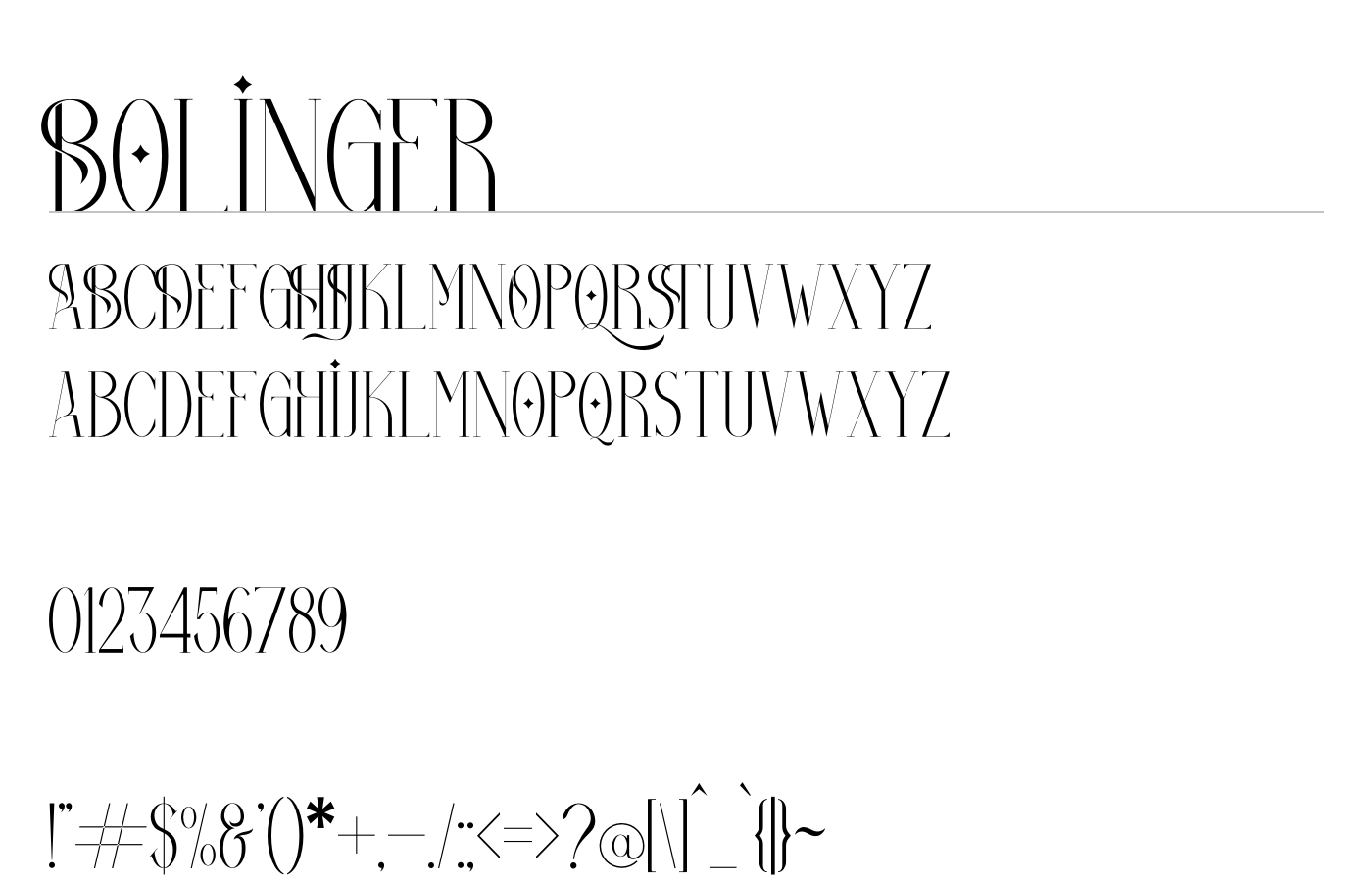
Bolinger is a highly stylized serif font with a modern and elegant character, featuring extremely thin strokes and high contrast between thick and thin lines. Its tall, condensed letterforms with unique decorative details, such as diamond-shaped dots and artistic curves, make it ideal for luxury branding and sophisticated headlines. This font works best in fashion, editorial, and upscale packaging where a striking, refined look is desired.
Bolinger Font
About Bolinger Font